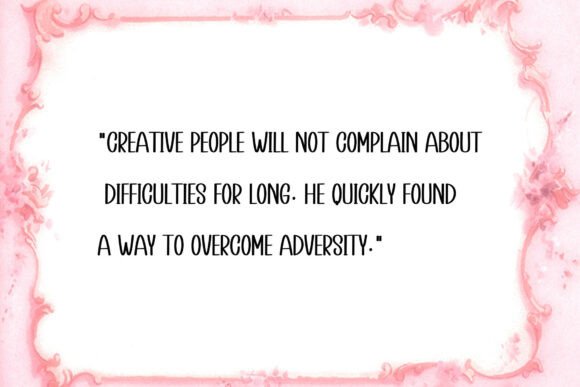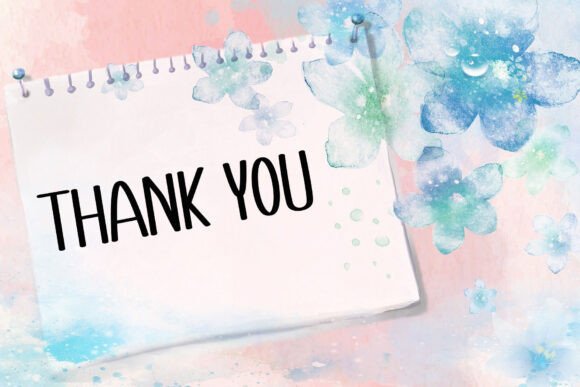
Introduction to Music Notes Font Font
Fonts play a crucial role in design, and the Music Notes Font font is a typeface that brings both character and versatility to any project. Whether you’re working on a branding project, a website, or a print design, the Music Notes Font font offers a unique style that can elevate your work.
Music Notes is a neat and beautiful handwritten font described by an elegant touch, perfect for your favorite projects Fall in love with its incredibly distinct and timeless style, and use it to create spectacular designs.
Music Notes is a neat and beautiful handwritten font described by an elegant touch, perfect for your favorite projects Fall in love with its incredibly distinct and timeless style, and use it to creat
Key Features of Music Notes Font Font
Why Choose Music Notes Font Font?
The Music Notes Font font is more than just a typeface – it’s a design tool that helps you communicate your message with style and clarity. Its unique character set and versatile design make it suitable for a wide range of applications, from elegant invitations to bold headlines.
With its carefully crafted letterforms and balanced proportions, the Music Notes Font font ensures readability and visual appeal across all mediums.
What makes Music Notes Font font special?
The Music Notes Font font stands out with its unique design, exceptional readability, and versatility across various design applications.